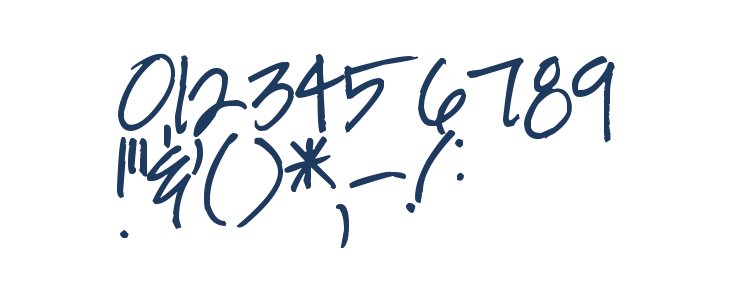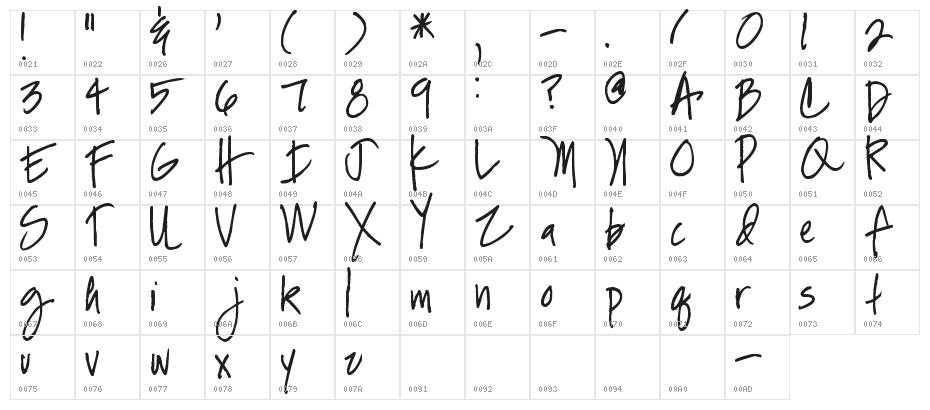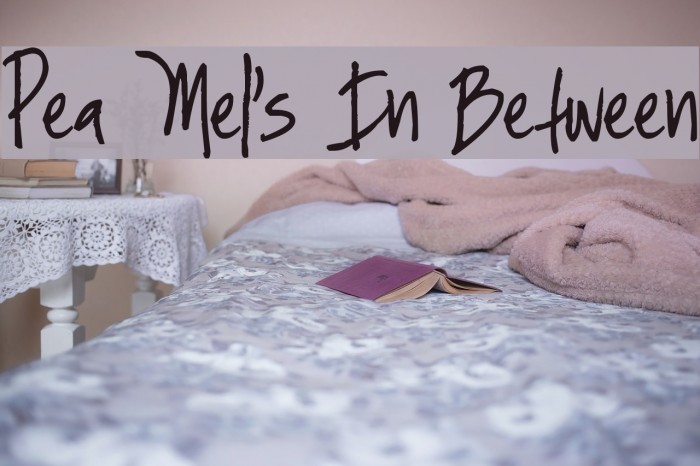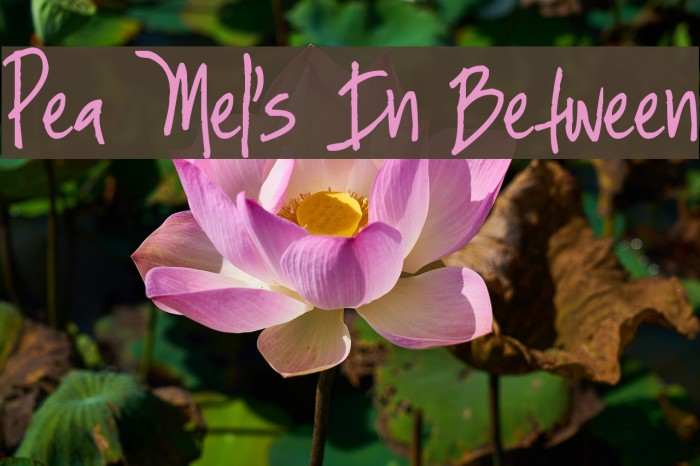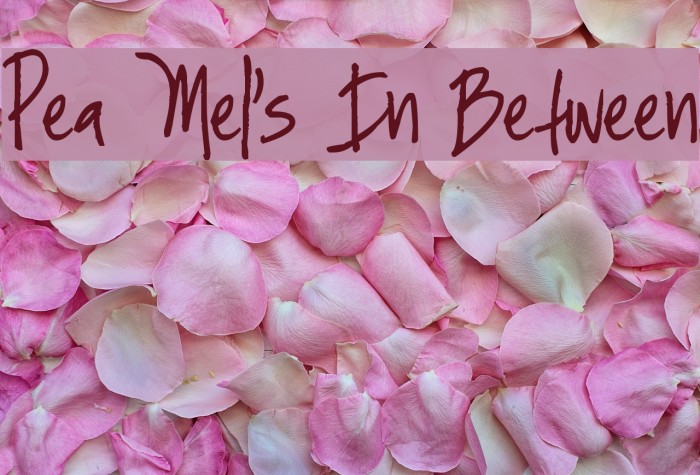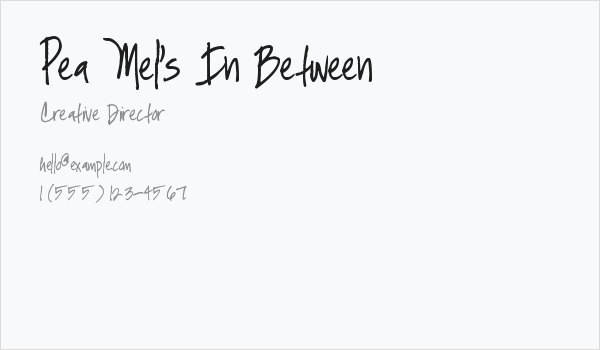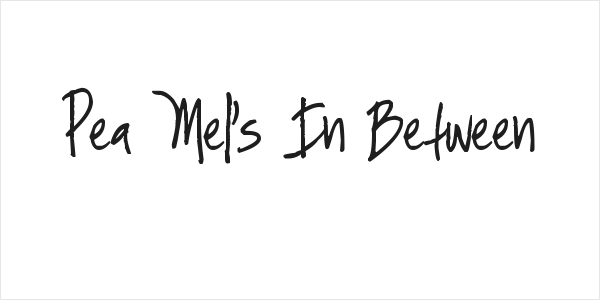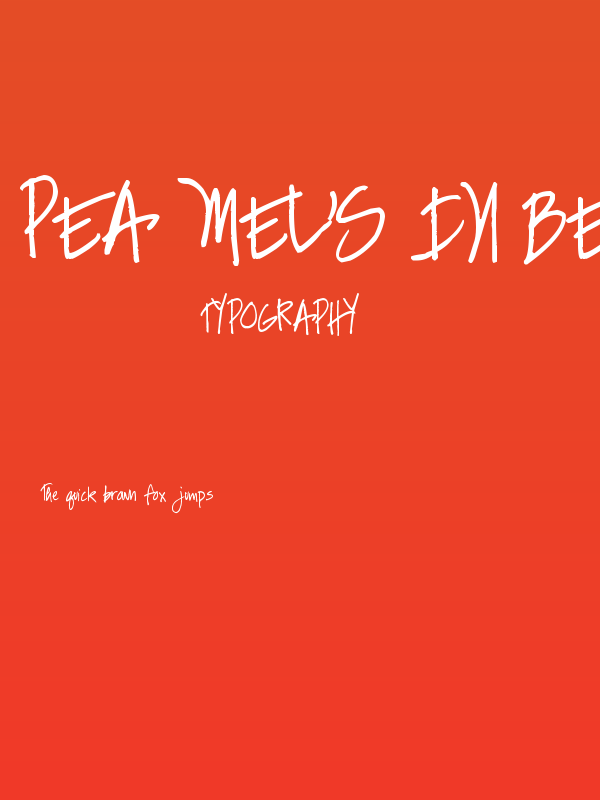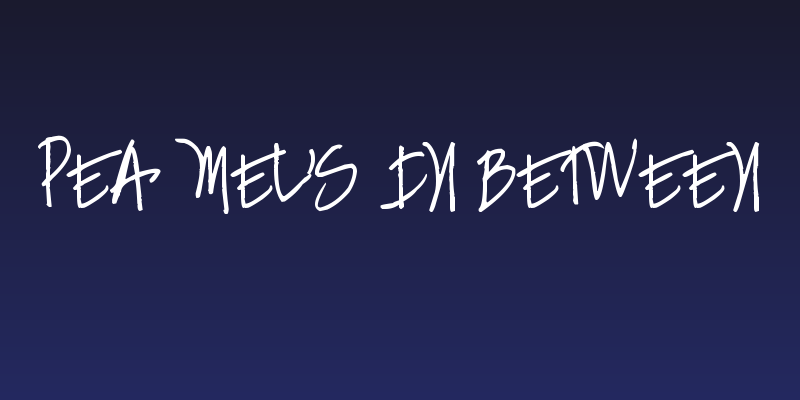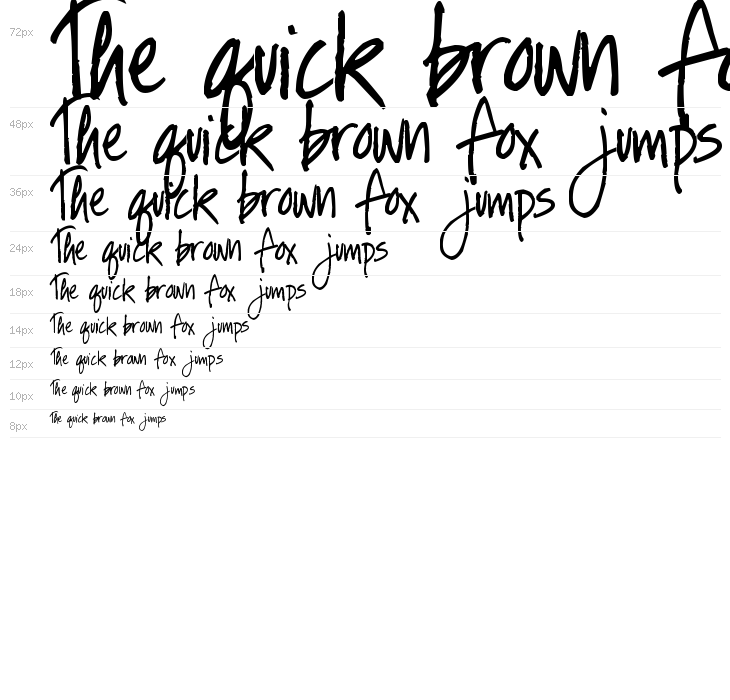
Pea Mel's In Between Font
Pea Mel's In Between Description
This font exudes a casual, handwritten style with a playful and spontaneous feel. The letters are unevenly spaced, giving it an authentic, personal touch. The strokes are bold and dynamic, with a slight slant that adds to its informal character. The uppercase and lowercase letters maintain a consistent style, while the numbers and special characters blend seamlessly into the overall design. This font is perfect for projects that require a personal, friendly, and approachable aesthetic.